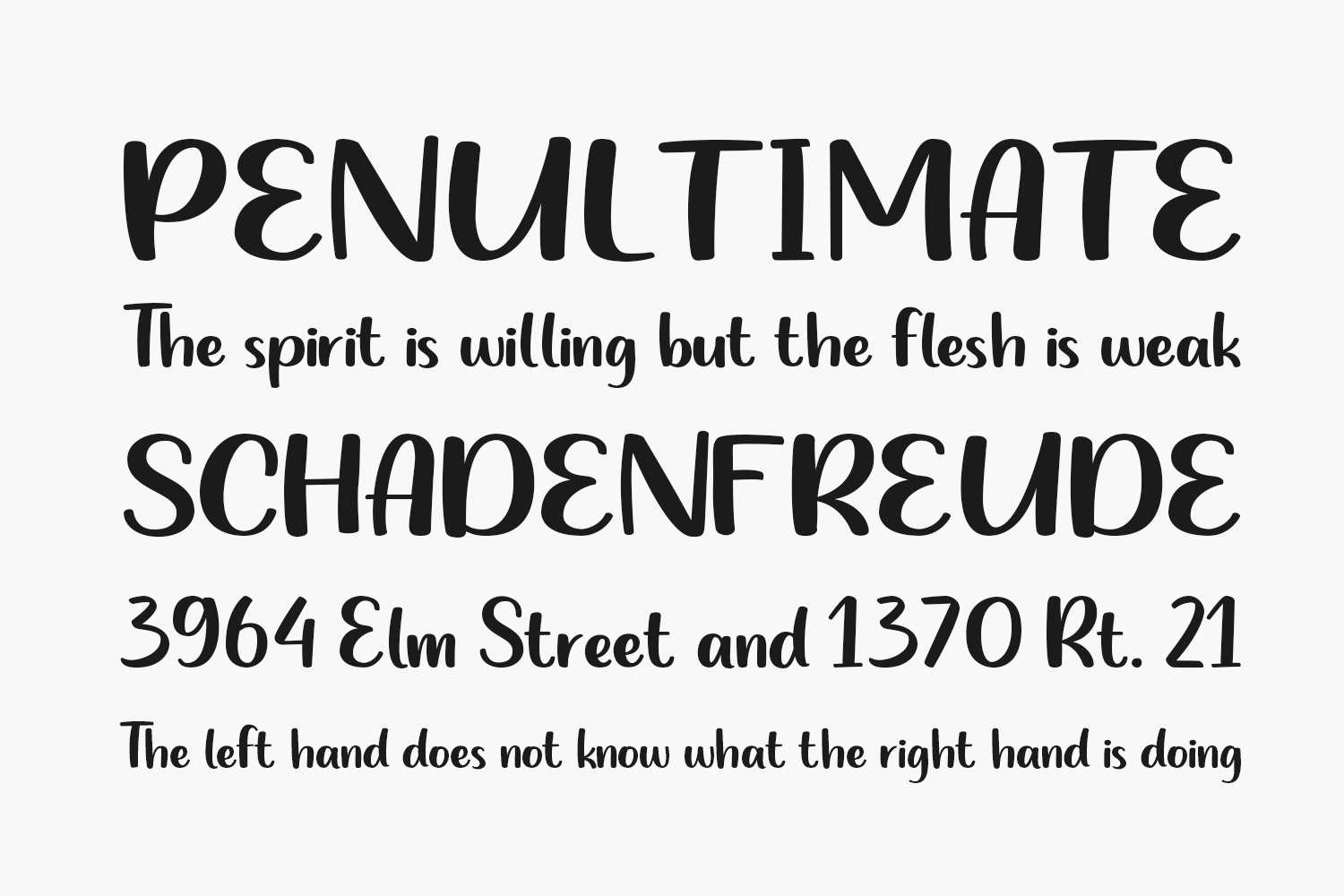
Golden Cheese Free Font is a casual and friendly handwritten font. No matter the topic, this font will be an incredible asset to your fonts’ library, as it has the potential to elevate any creation. Golden Cheese Free Font was designed by Letterflow Studio and is free for personal use only. Please purchase the full version for commercial use.